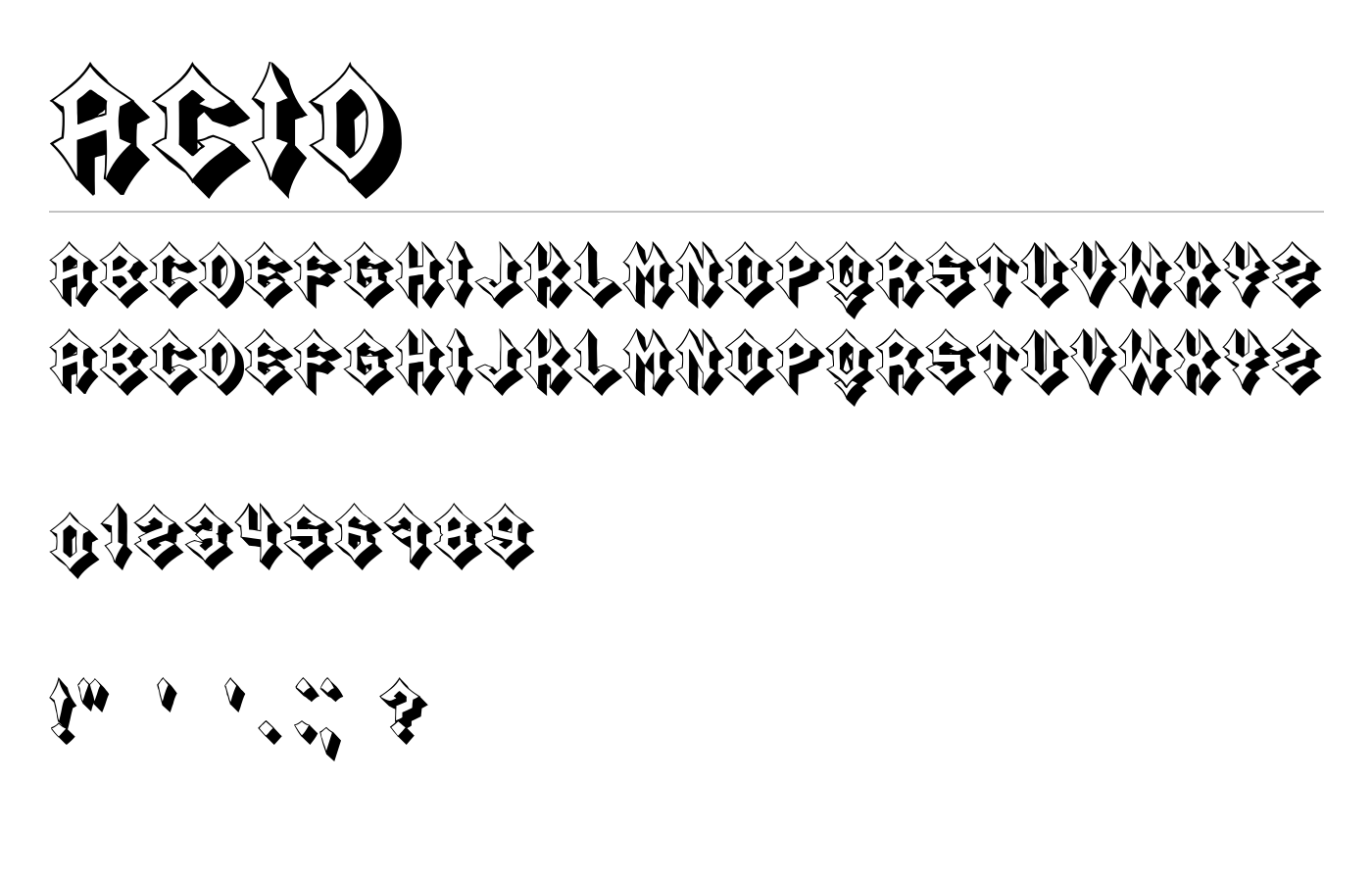
Acid Font is a bold, blackletter-inspired typeface featuring sharp, angular forms with high contrast between thick and thin strokes, giving it a dramatic and edgy appearance. Its distinctive geometric shapes and dense structure make it ideal for striking headlines, logos, or designs seeking a gothic, vintage, or rebellious vibe. This font works best in display contexts where its unique personality can stand out and captivate attention.
Acid Font
About Acid Font